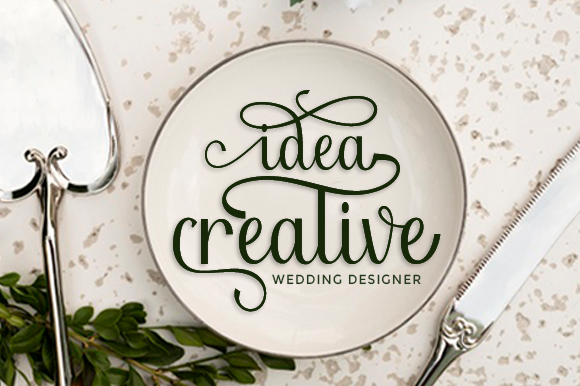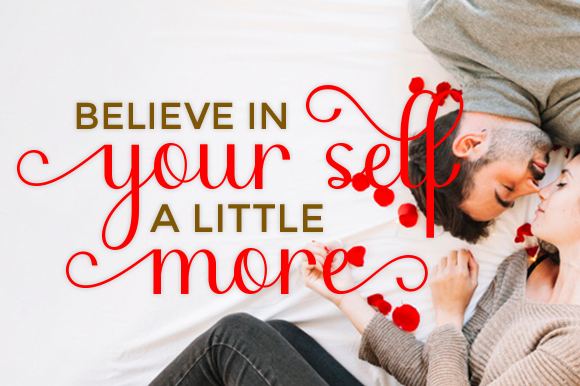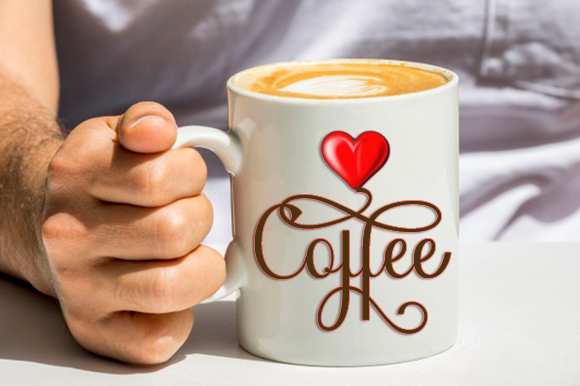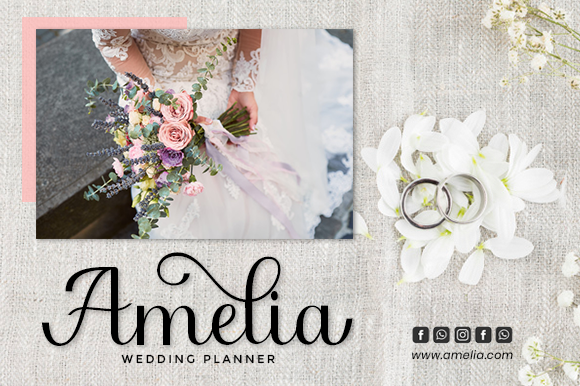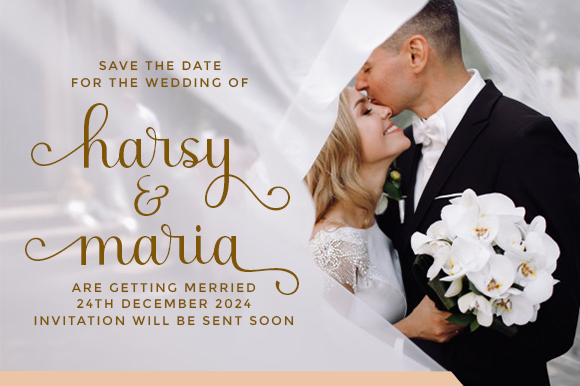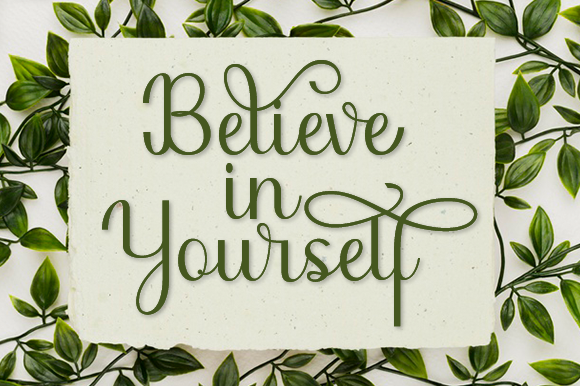
Introduction to Malaysia Font
Have you ever stared at a blank canvas, feeling the pressure to create something truly unique for your next DIY project? The struggle is real, but what if I told you there’s a secret to unlocking your creative potential? It all starts with the right design resource – one that can breathe life into your ideas and make them truly unforgettable. Enter the Malaysia Font, a stunning and one-of-a-kind handwritten font that’s about to revolutionize your creative project.
As a designer, you understand the value of high-quality fonts in elevating your work. That’s why the Malaysia Font is a game-changer – with its elegant script and transparent background, it’s the perfect addition to any design project. And the best part? It’s available for free download, making it an accessible design resource for creatives of all levels.
So why wait? Dive into the world of the Malaysia Font and discover how this gorgeous font can bring your DIY project to life in a way you never thought possible.
Key Features of Malaysia Font
- Features a modern and elegant design, perfect for creating a professional and sophisticated look.
Honest Review: Malaysia Font
I recently had the opportunity to work with the Malaysia Font, and I must say it was a pleasant experience. The font is designed to evoke the vibrant culture of Malaysia, and it does so with great success.
- High quality design: The font is crisp, clear, and well-designed, making it perfect for any creative project that requires a touch of Malaysian flair.
- Limited language support: The font is primarily designed for use with the Malay language, which may limit its use in other creative projects.
- No bold or italic styles: While the font is well-designed, it lacks bold and italic styles, which may make it less versatile for certain projects.
Overall, I was impressed with the Malaysia Font. Its unique design and high quality make it a valuable resource for designers working on creative projects that require a touch of Malaysian culture. While it may have some limitations, I would definitely recommend it to anyone looking for a free, high-quality font.
How to Use Malaysia Font
The Malaysia Font is a high-quality, free download design resource ideal for creative projects. It features a unique and modern style, perfect for adding a touch of sophistication to your designs.
Tips for Getting the Most Out of Malaysia Font
For the best results, use the Malaysia Font in conjunction with other high-quality design resources, such as graphics and images. You can also experiment with different font sizes and colors to add visual interest to your designs.
Common Use Cases for Malaysia Font
The Malaysia Font is ideal for a variety of creative projects, including social media graphics, presentations, and documents. It’s also a great choice for branding and marketing materials, such as business cards and brochures.